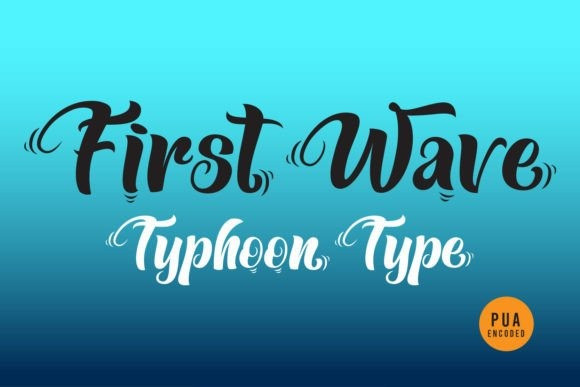
First Wave Font
First Wave Font is a dynamic English font that embodies the essence of free-spirited creativity. Crafted in a stylish script style, it gives the impression of being hand-drawn with broad, fluid strokes. The font exudes a playful and vibrant energy, creating a sense of movement and liveliness that’s truly one-of-a-kind.
With its contemporary appeal and captivating design, “First Wave” is the perfect choice for a wide range of advertising projects. Whether it’s posters, flyers, or digital campaigns, this font effortlessly infuses a modern touch and a sense of joy, making it ideal for capturing attention and adding a unique flair to your designs.This font is PUA encoded, which means you can access all of the glyphs and swashes with ease!